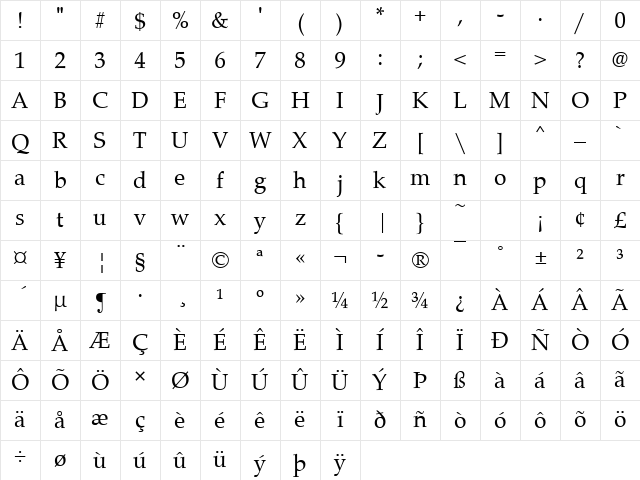
Complete Becker Palladio Regular glyph index. Displaying only characters natively supported by Becker Palladio Regular font.
Becker Palladio is a composed and adaptable typeface that performs quietly and consistently across a wide range of design contexts.